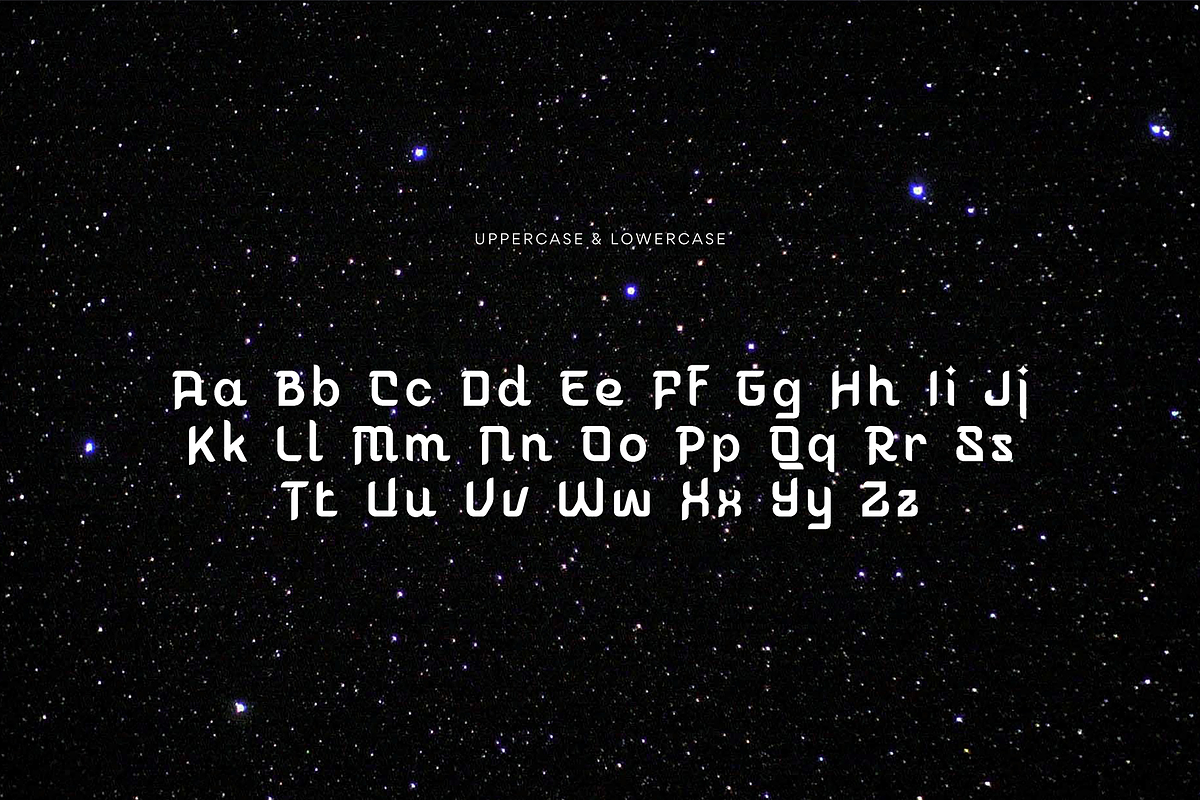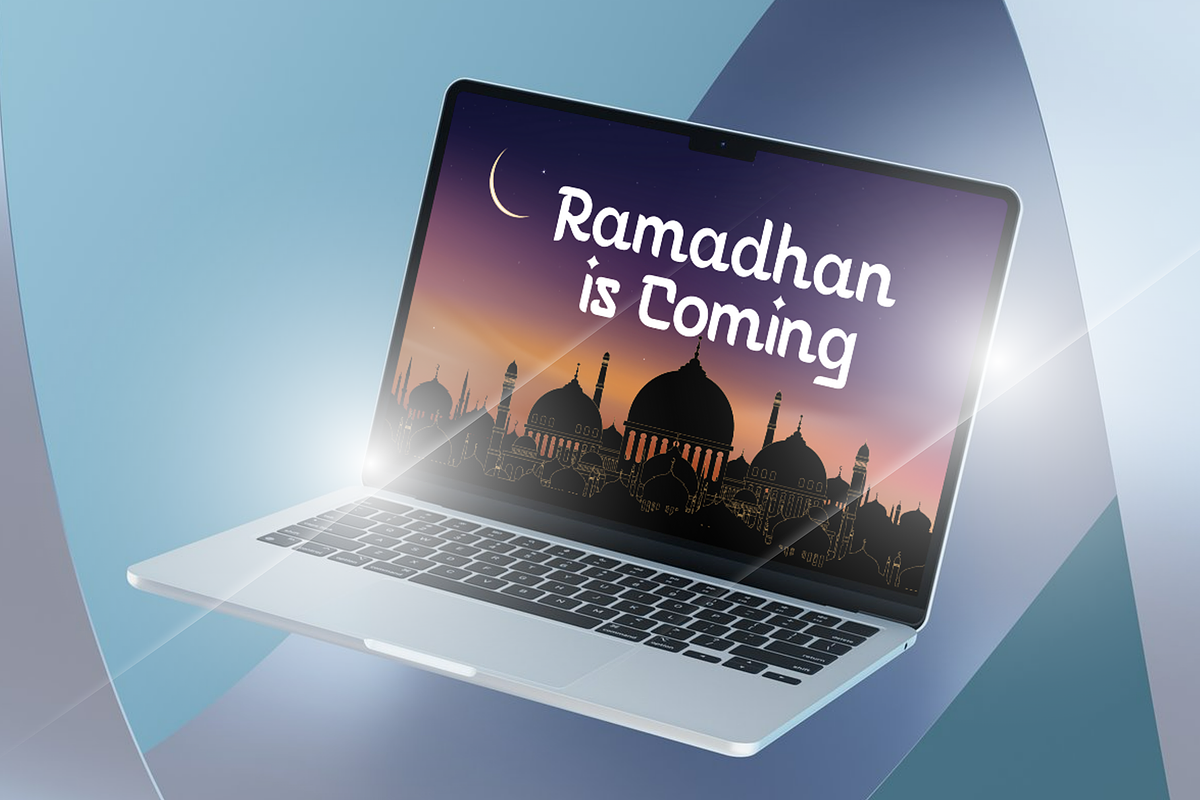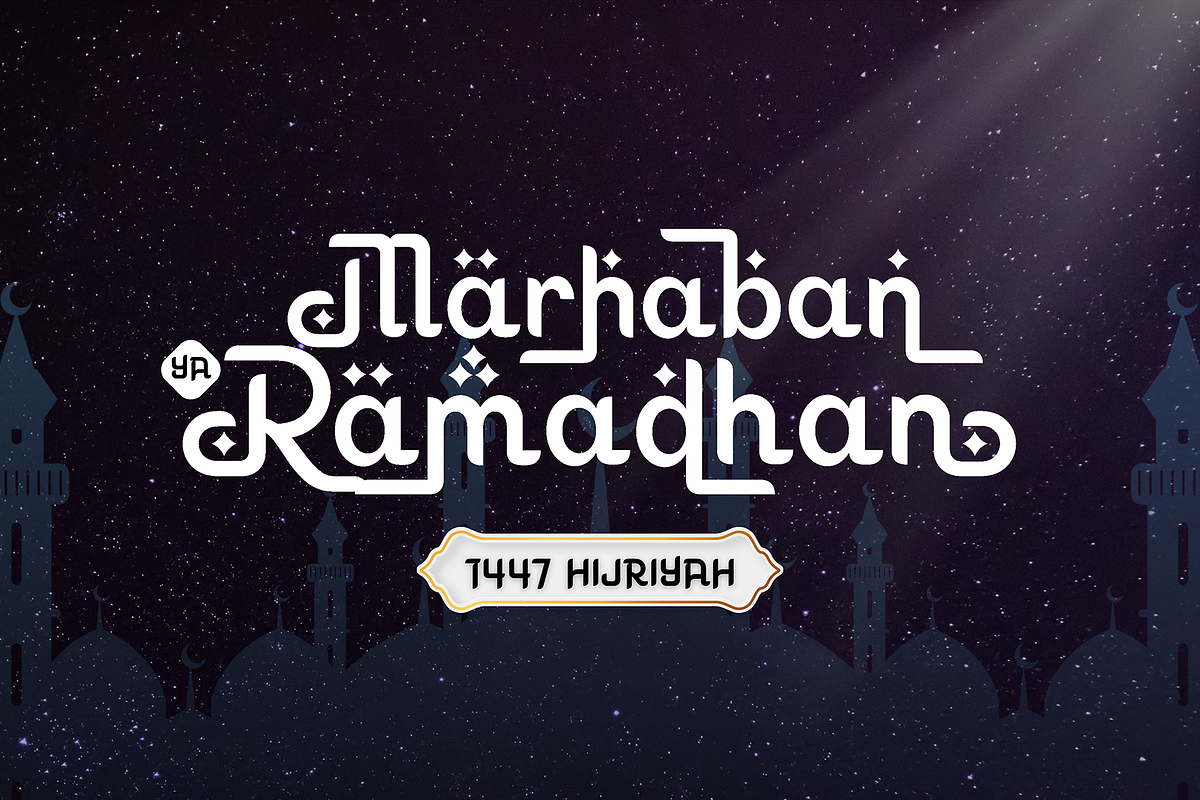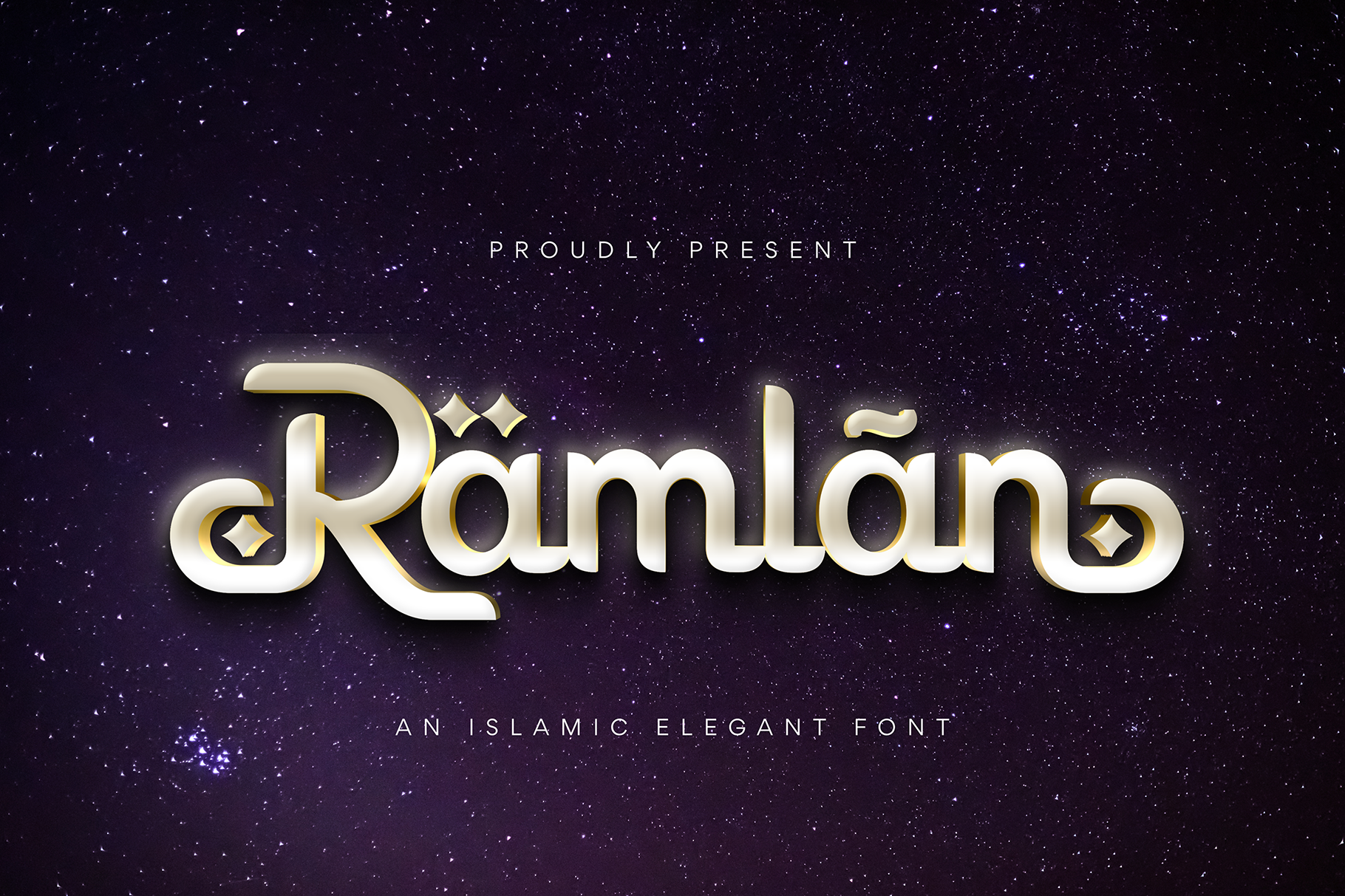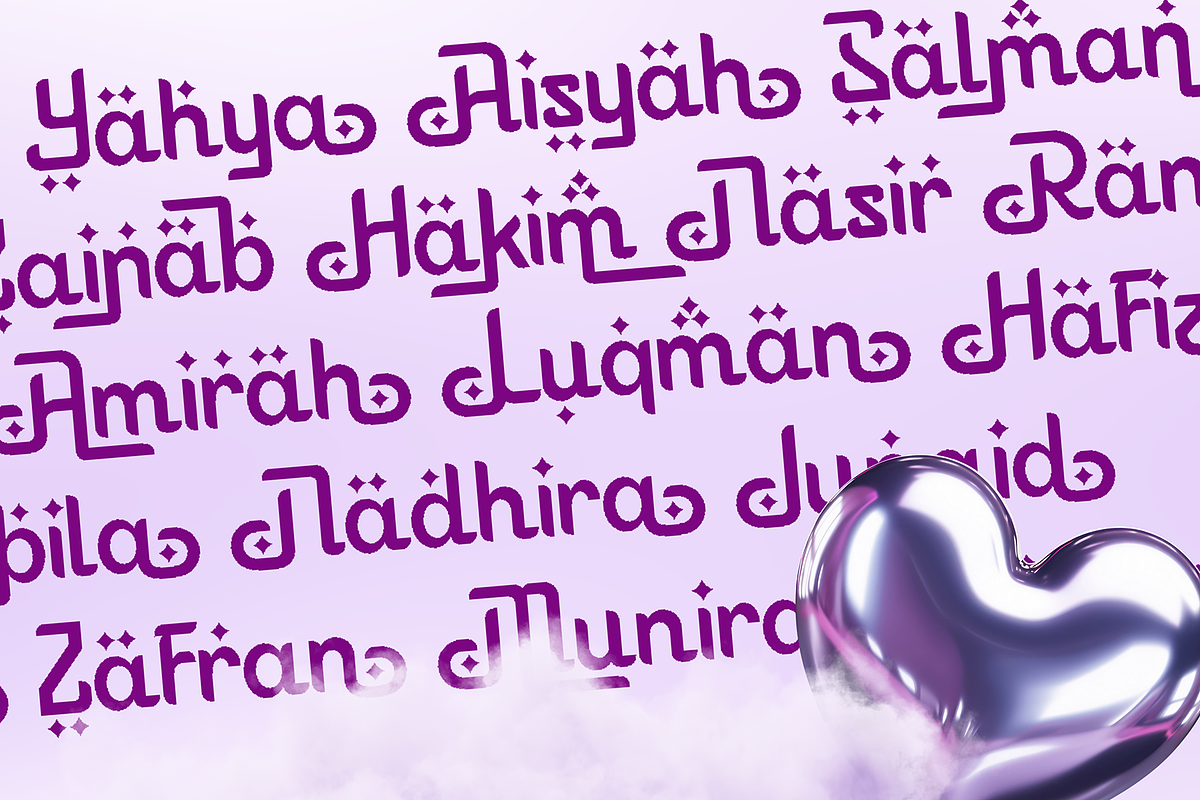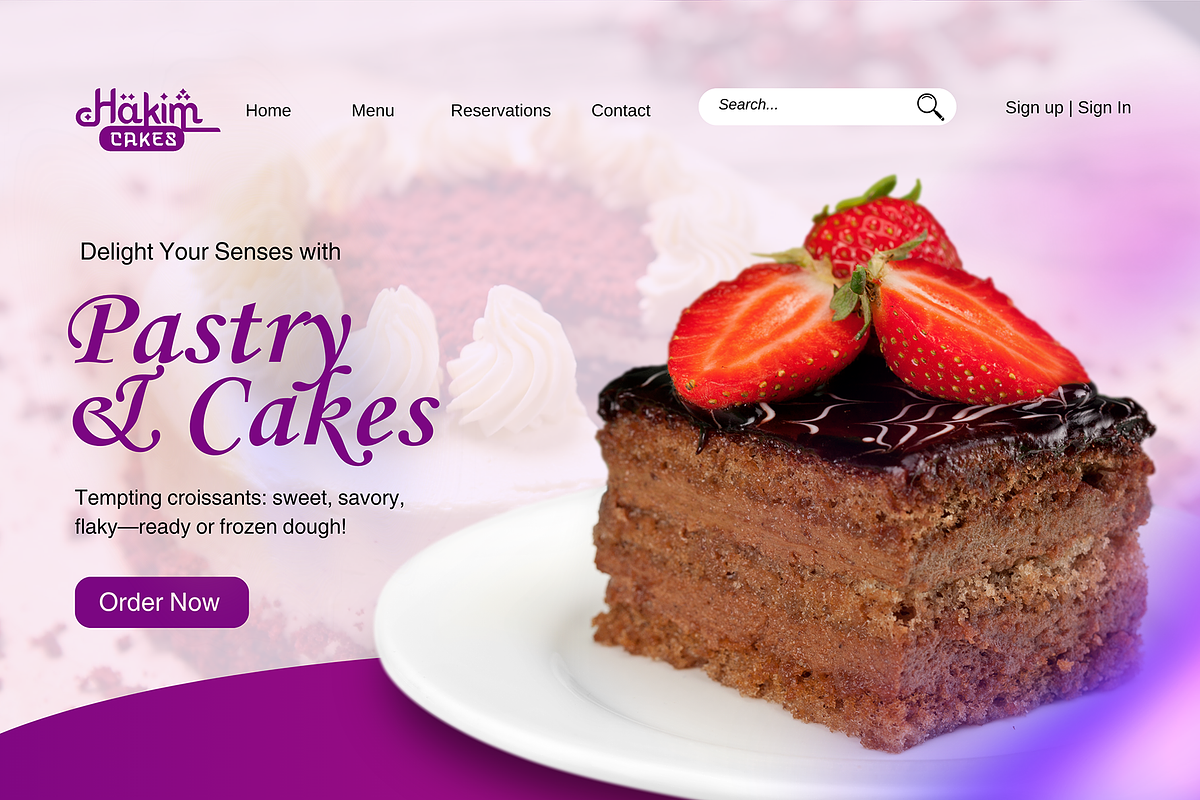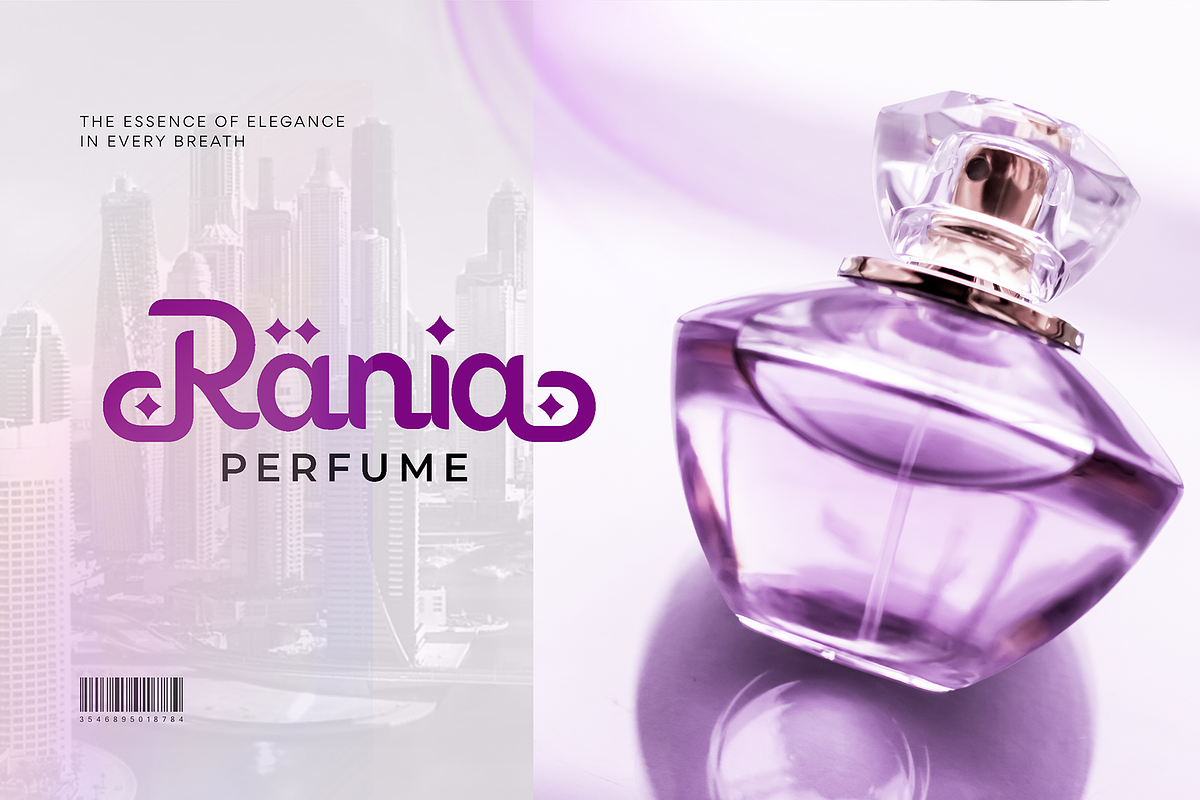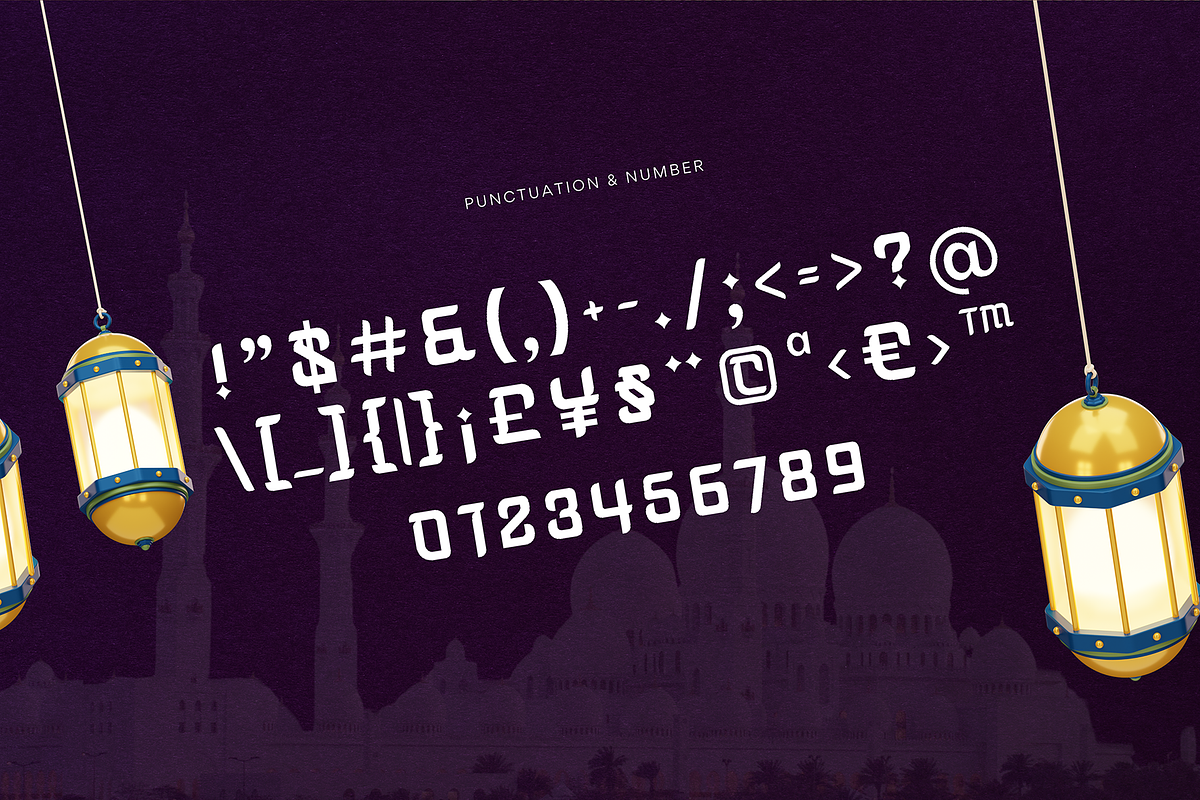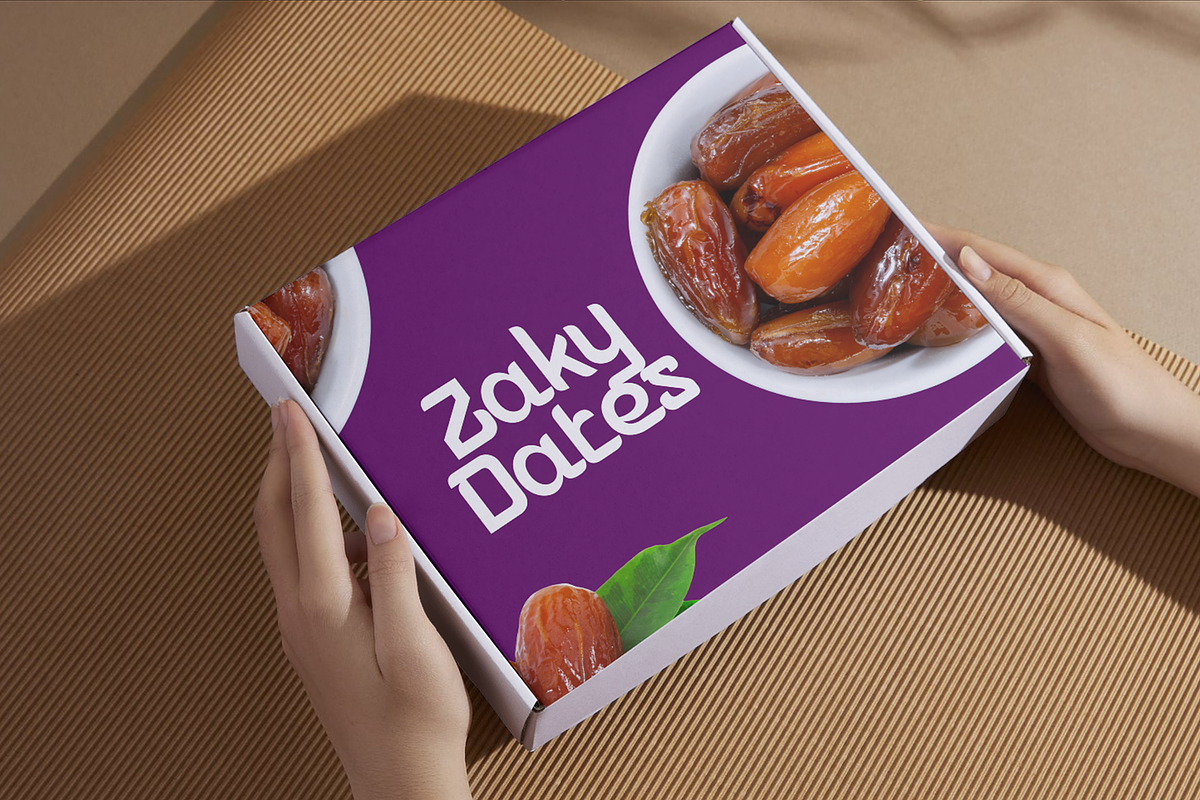
Ramlan Arabic Elegant Font
Ramlan Elegant Arabic Font
Ramlan Arabic Font is a unique, modern display font with a unique, elegant, and modern style. It is a sans serif font perfect for branding projects, logos, social media posts, product packaging, labels, etc.